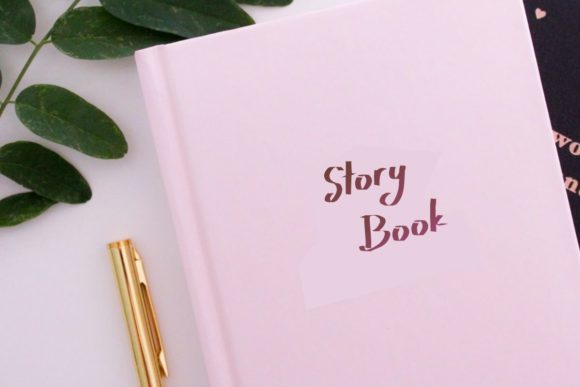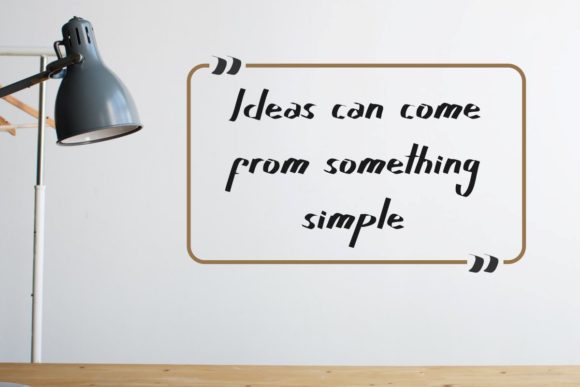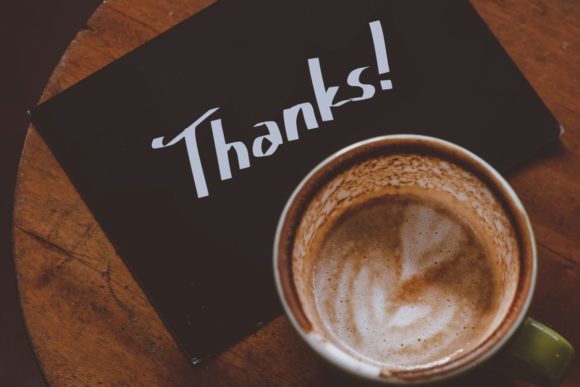
Introduction to Mono Grammers Font
Remember that moment when you’re brainstorming ideas for your next creative project, and suddenly, a spark of inspiration hits you? For designers, it’s often the perfect font that brings a concept to life. If you’re looking for a high-quality design resource that can elevate your work, you’re in luck. Introducing the Mono Grammers Font, a daring handwritten font that’s perfect for crafty ideas.
This genuine look will appeal to a wide range of creative endeavors, from letterheads and titles to stationery. With its unique, cursive style, the Mono Grammers Font is sure to add a personal touch to your designs. Whether you’re working on a free download or a paid project, this versatile font is a valuable asset for any designer. And the best part? Its transparent background makes it easy to layer and combine with other elements.
Key Features of Mono Grammers Font
- High-quality font design with a transparent background, ideal for creative projects and design resources.
- Perfect for use in graphic design, digital art, and other creative projects that require a clean and modern font.
- Characteristics include a simple yet elegant design, making it easy to read and versatile in its applications.
- Designed to be highly legible, even at small font sizes, making it suitable for use in digital displays and online content.
Honest Review: Mono Grammers Font
I recently stumbled upon the Mono Grammers Font, and I must say it’s a fantastic addition to any designer’s toolkit. This high-quality font is perfect for those working on creative projects that require a clean and modern aesthetic.
- ✨ The font’s design is sleek and sophisticated, making it ideal for corporate branding and marketing materials.
- ✨ The transparent background allows for seamless integration with any design element, giving you complete creative control.
As a design resource, the Mono Grammers Font is incredibly versatile and can be used for a wide range of applications, from website headers to social media graphics.
- Limitations:
- ⚠️ The font may not be suitable for projects that require a lot of texture or depth, as its simplicity may not be enough to add visual interest.
- ⚠️ Some users may find the font too plain or unremarkable, which could limit its appeal in certain creative contexts.
Overall, I’m impressed with the Mono Grammers Font and would recommend it to designers looking for a high-quality, free download to add to their arsenal. With its transparent background and sleek design, it’s a great choice for any creative project.
Tips for Getting the Most Out of Mono Grammers Font
Use a transparent background to create a clean and minimalist design. Combine Mono Grammers Font with other design resources, such as graphics and images, to create a unique and eye-catching visual identity. Experiment with different font sizes and styles to add depth and interest to your design.
Mono Grammers Font is suitable for a wide range of creative projects, including logos, brochures, business cards, and social media graphics. Its clean and modern design makes it an ideal choice for minimalist and high-end designs.